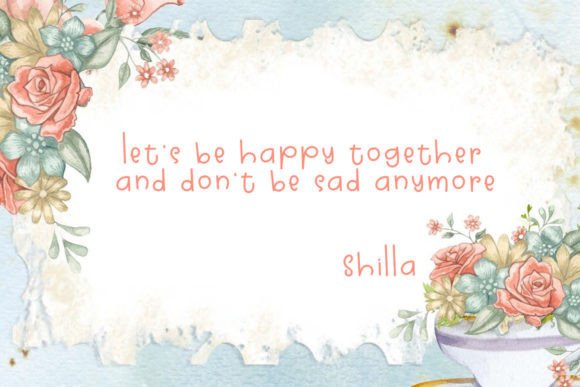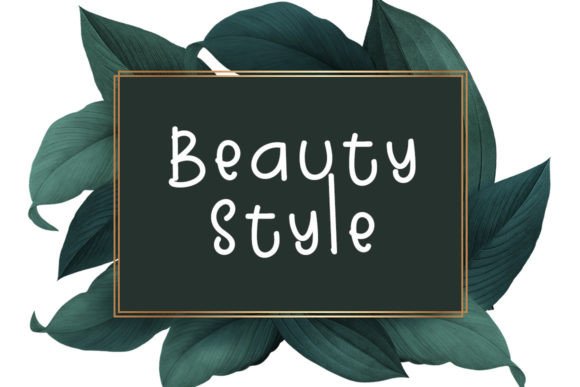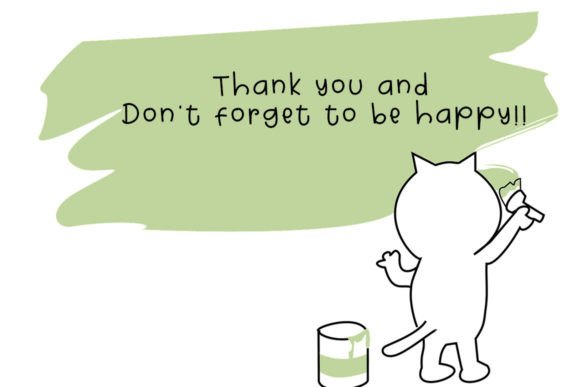
Introduction to Forsgy Font
Forsgy is a beautiful and sweet font.
It is fresh, clean, and elegant This font will look amazing in a great number of projects, both formal and informal.
Key Features of Forsgy Font